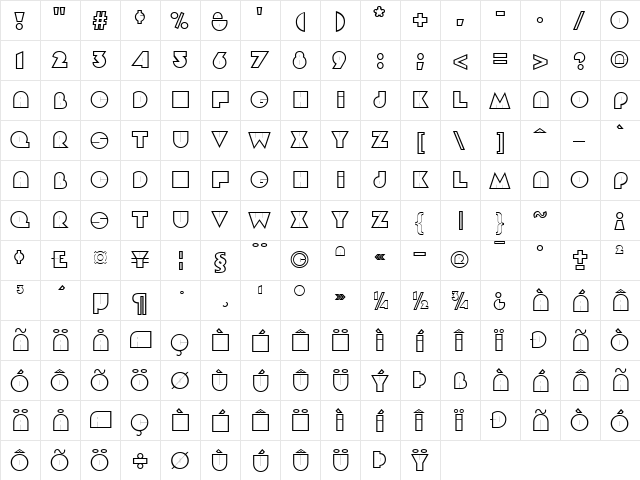
GE Bagel Outline Caps Regular
Design Context for GE Bagel Outline Caps Typeface
GE Bagel Outline Caps brings ornamental detail and strong personality to headlines and identities, where visual impact matters more than quiet functionality.
Font Pairing: Pair with a clean neutral sans-serif for body copy to let GE Bagel Outline Caps's character lead without overwhelming the composition.
Pro Tip: Treat GE Bagel Outline Caps as the centrepiece of your typographic hierarchy. One strong heading set in a decorative face can carry an entire layout.